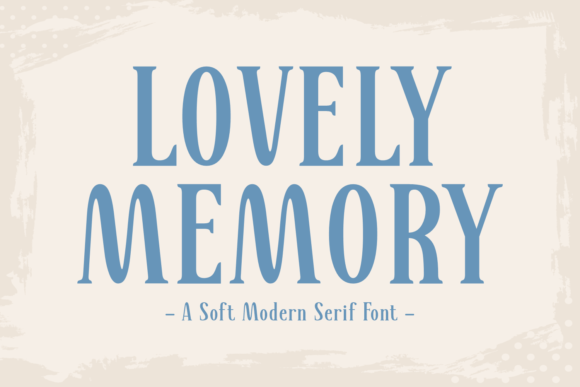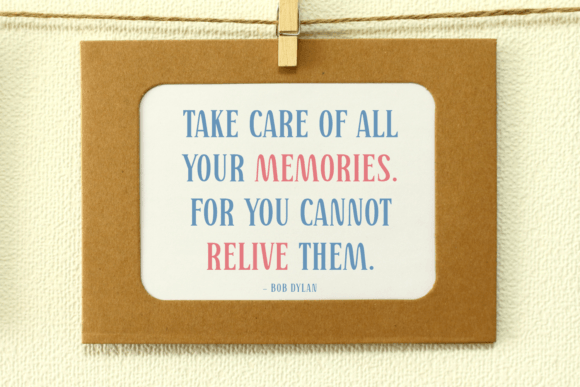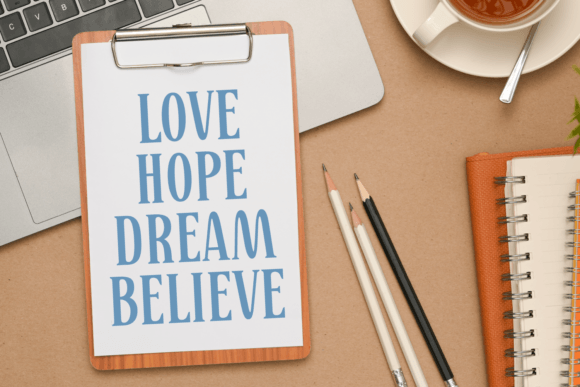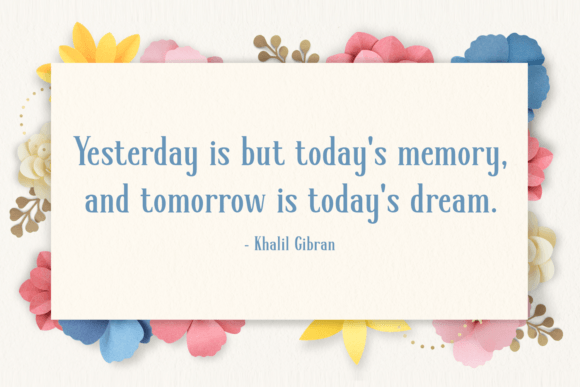
Lovely Memory Font: Elegant Serif for Wedding & Social Media Design
About the Lovely Memory Font
Experience the unique personality of Lovely Memory Font, a font designed for impact. Lovely Memory is an elegant and bold serif font. Fall in love with its incredibly versatile style and use it to create gorgeous wedding invitations, beautiful stationary art, eye-catching social media posts, and much more!
Lovely Memory’s elegant boldness makes it ideal for headlines, short-form text in branding materials, and impactful signage. It works particularly well for projects requiring a touch of classic sophistication, such as luxury product packaging or high-end event invitations. However, its strong serifs and relatively high x-height make it less suitable for body text or extended paragraphs, potentially hindering readability.
For effective pairings, consider pairing Lovely Memory with a clean sans-serif like Open Sans for body copy to create a strong contrast and visual hierarchy. Alternatively, a delicate script font could add a touch of handwritten charm for secondary text elements, while a geometric sans-serif would provide a modern counterpoint.
The font projects a confident yet refined personality, suitable for brands emphasizing quality, tradition, and a touch of timeless style. Avoid using it for projects requiring a playful or informal aesthetic.